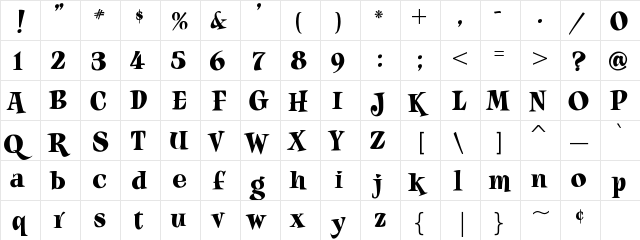
A&S Jiggy Roman Regular
| Foundry | Art&Sign studio/Signfonts |
| Designer | Steve Contreras |
Design Context for A&S Jiggy Roman Typeface
A&S Jiggy Roman is a composed and adaptable typeface that performs quietly and consistently across a wide range of design contexts.